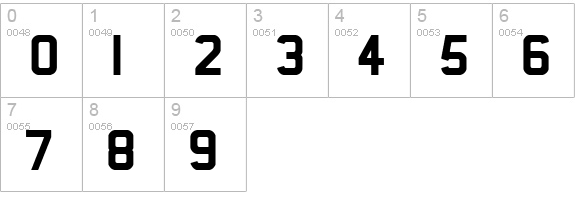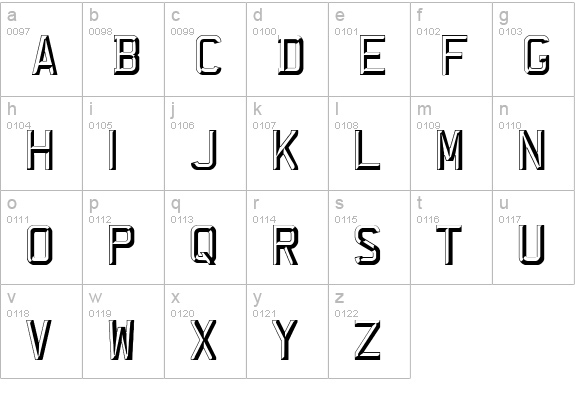
REGISTRATION PLATE UK Font Details
The REGISTRATION PLATE UK font is a visually striking and highly versatile typeface that captures the essence of British license plates. With its bold and distinct letterforms, this font exudes a sense of authority and sophistication, making it perfect for any project that requires a touch of British charm. The REGISTRATION PLATE UK font is not only aesthetically pleasing but also highly functional. Its clear and legible design ensures that your message is conveyed with clarity and impact. Whether you are designing a logo, creating signage, or adding a unique touch to your personal or professional projects, this font is sure to make a lasting impression. One of the most appealing aspects of the REGISTRATION PLATE UK font is that it is available for free download at FontsMarket.com. This means that you can enhance your designs with this stunning typeface without having to spend a penny. Simply visit FontsMarket.com, locate the REGISTRATION PLATE UK font, and start incorporating it into your projects today. In addition to being freely available, the REGISTRATION PLATE UK font also offers a wide range of characters and symbols, allowing you to add a personalized touch to your designs. Whether you need uppercase letters, lowercase letters, numbers, or special characters, this font has you covered. Furthermore, the REGISTRATION PLATE UK font is compatible with various design software, making it easy to integrate into your existing workflow. Whether you are using Adobe Photoshop, Illustrator, or any other design program, you can seamlessly incorporate this font into your projects. Overall, the REGISTRATION PLATE UK font is a must-have for any designer or creative individual looking to add a touch of British flair to their work. With its bold and distinctive design, extensive character set, and the fact that it is freely available to download at FontsMarket.com, this font is a valuable addition to any font collection. So why wait? Download the REGISTRATION PLATE UK font today and elevate your designs to a whole new level.